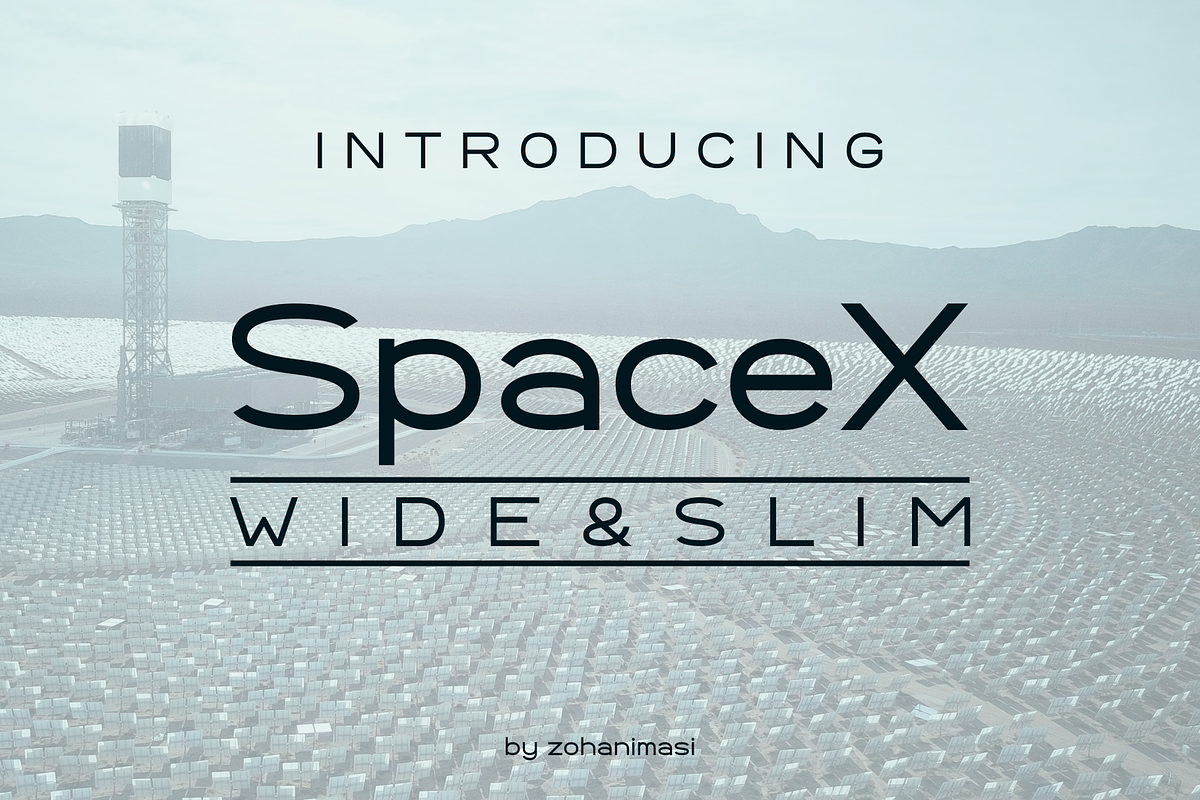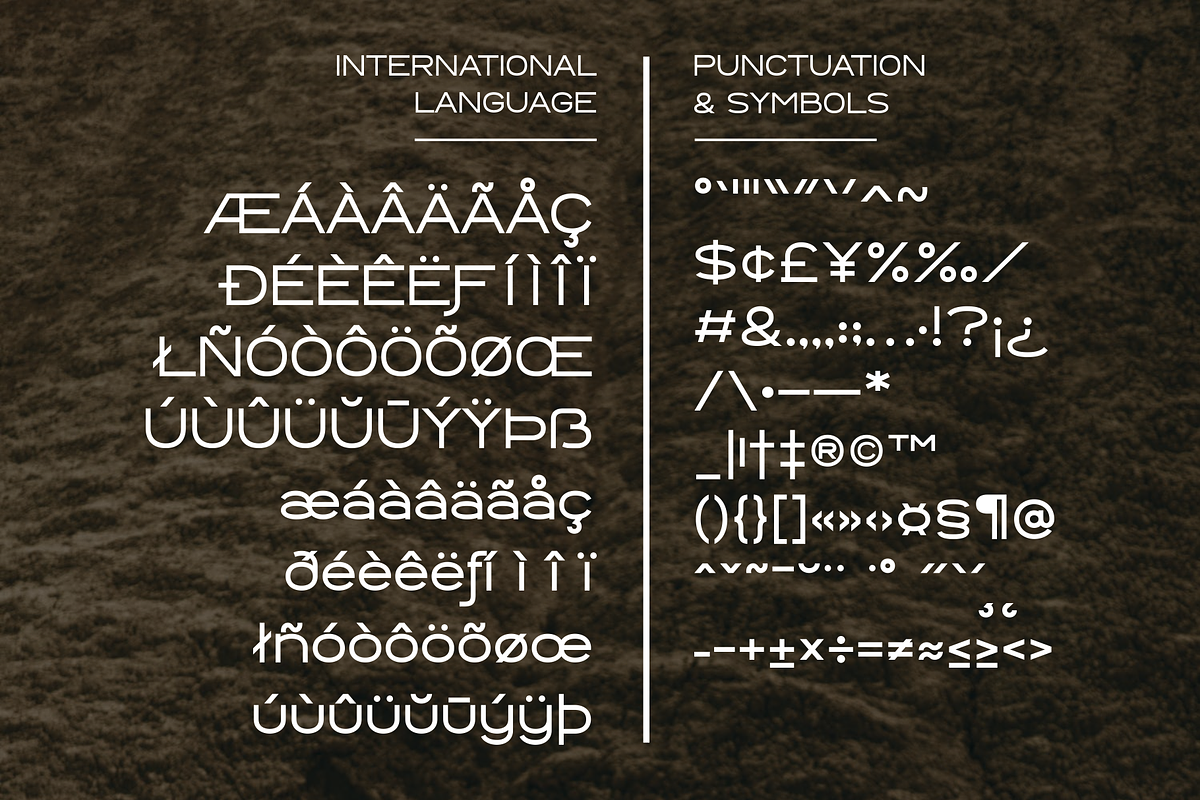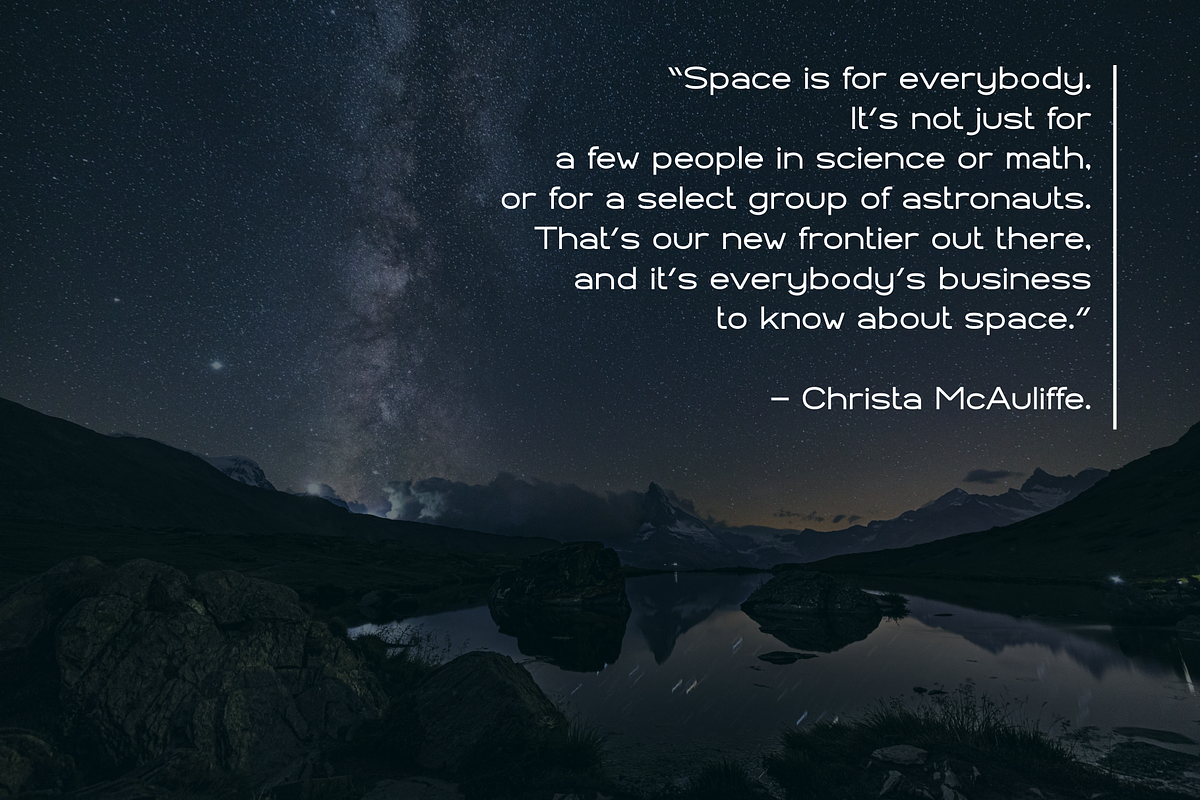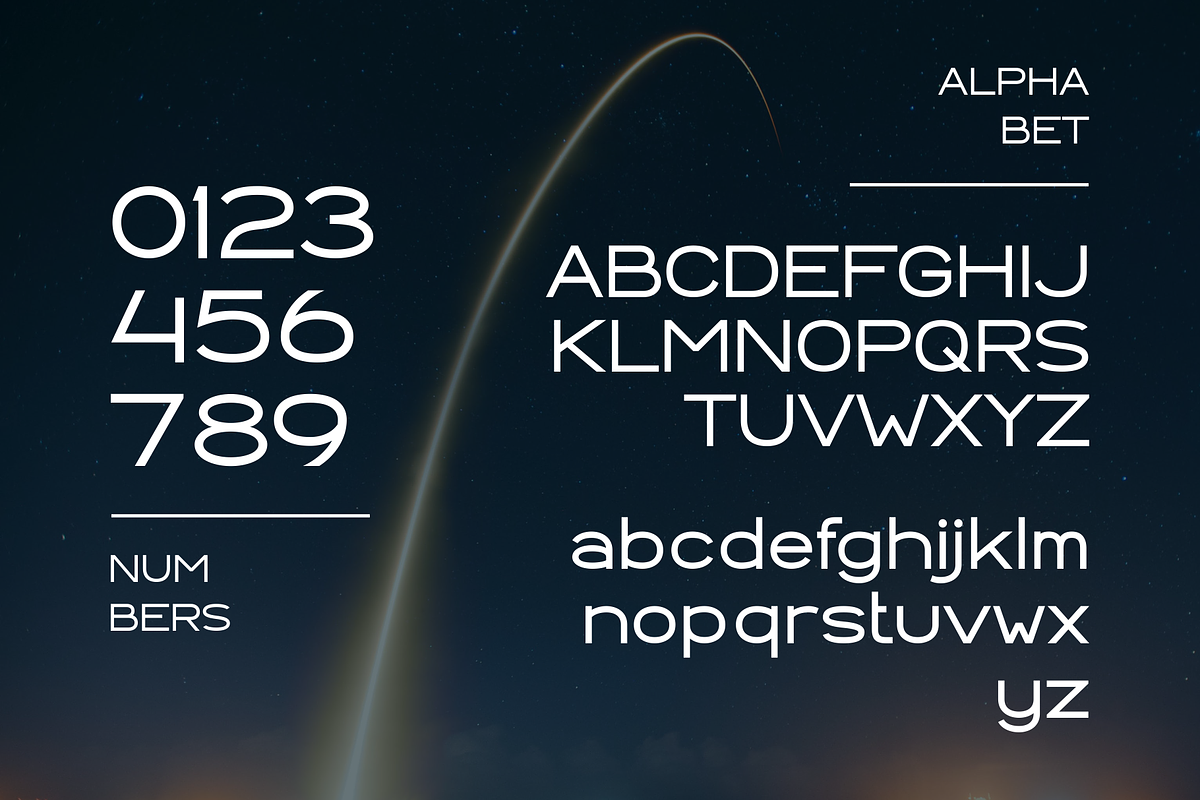
SpaceX - Wide & Slim Sans Serif
SpaceX - Wide & Slim Sans Serif. It is perfect for important titles or names, logo, headings, flyer, advertisements, product packaging, product designs, label, etc.
- Numbers, Punctuation & Symbols
- International Language